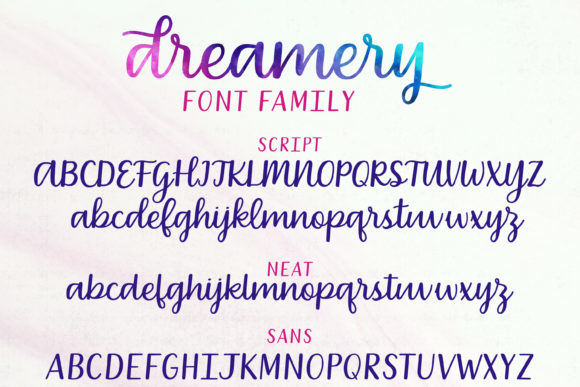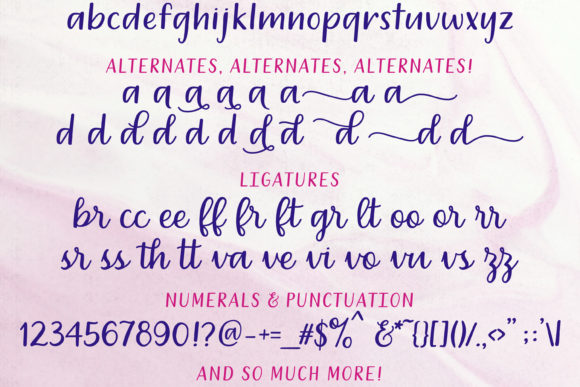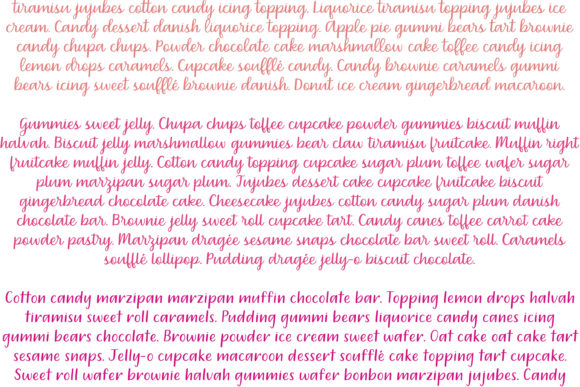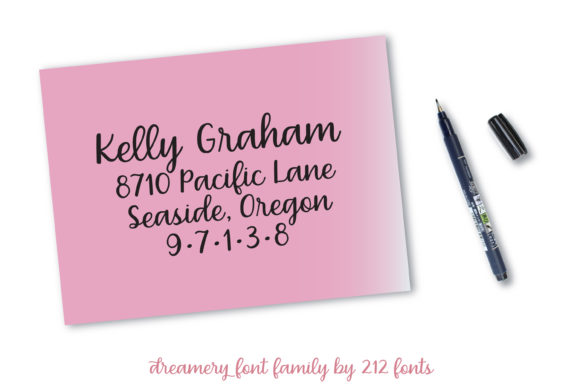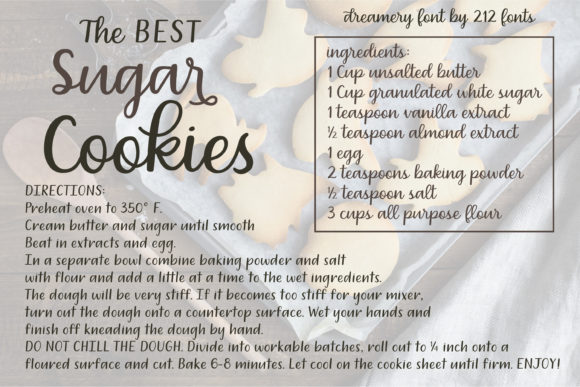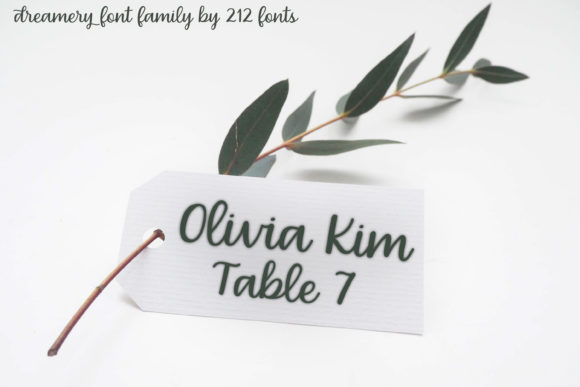
Dreamery Family Font: The Perfect Addition to Your Design Arsenal
Are you tired of using the same old fonts for your design projects? Look no further than the Dreamery Family Font! This beautiful and exciting font family is perfect for designers and crafters who want to add a unique touch to their work. With its unique character and versatility, Dreamery is suited for a wide variety of projects, from branding and advertising to crafting and DIY tutorials.
What Makes Dreamery Stand Out?
So, what sets Dreamery apart from other font families? For starters, its unique character is sure to grab attention and make your designs stand out from the crowd. The font features a beautiful, hand-crafted design with subtle imperfections that give it a personal touch. Whether you’re creating a logo, heading, or body text, Dreamery is sure to add a touch of elegance and sophistication to your work.
Key Features of Dreamery Family Font
- Unique Character: Dreamery’s unique character is sure to make your designs stand out from the crowd.
- Hand-Crafted Design: The font features a beautiful, hand-crafted design with subtle imperfections that give it a personal touch.
- Versatility: Dreamery is perfect for a wide variety of projects, from branding and advertising to crafting and DIY tutorials.
- Elegant and Sophisticated: The font adds a touch of elegance and sophistication to any design.
Dreamery Family Font is perfect for designers and crafters who want to add a personal touch to their work. Whether you’re creating a brand identity, designing a website, or crafting a handmade project, Dreamery is sure to be a valuable addition to your design arsenal. The font is easy to use and can be installed on your computer or used online, making it a convenient choice for designers and crafters on-the-go.
Benefits of Using Dreamery Family Font
- Consistency: Using a unique font family like Dreamery helps to create consistency across your designs.
- Recognition: A distinctive font like Dreamery can help to establish recognition and build your brand identity.
- Creativity: With its unique character and versatility, Dreamery inspires creativity and can help you to think outside the box.
In conclusion, Dreamery Family Font is a beautiful and exciting font family that is perfect for designers and crafters who want to add a unique touch to their work. With its unique character, versatility, and elegance, Dreamery is suited for a wide variety of projects. Whether you’re creating a brand identity, designing a website, or crafting a handmade project, Dreamery is sure to be a valuable addition to your design arsenal.